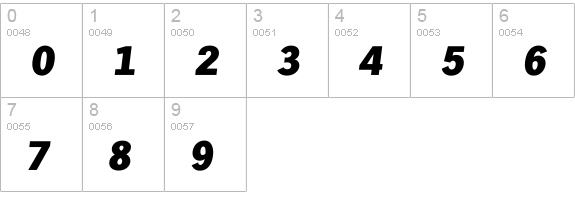
Ihamburg ExtraBold is an extra-heavy, attention-grabbing variant in the Ihamburg typeface family \xE2\x80\x94 well suited to high-impact headlines, posters, and bold branding.
Ihamburg ExtraBold is a striking and bold font that commands attention with its strong presence. This font exudes confidence and power, making it the perfect choice for headlines, logos, and any design that needs to make a bold statement. With its thick and solid letterforms, Ihamburg ExtraBold is both modern and timeless, making it versatile for a wide range of design projects. Whether you're designing a poster, a website, or a branding project, this font will add a touch of sophistication and elegance. What makes Ihamburg ExtraBold even more appealing is that it is freely available to download at FontsMarket.com. This means that you can enhance your designs with this exceptional font without having to worry about any additional costs. With its high-quality design and professional aesthetics, Ihamburg ExtraBold is a valuable asset for any designer or creative professional. The attention to detail in Ihamburg ExtraBold is remarkable, with perfectly balanced letterforms and a clean, crisp appearance. The bold strokes and sharp angles create a sense of energy and dynamism, giving your designs a sense of movement and excitement. Whether you're designing for print or digital media, Ihamburg ExtraBold will make your text stand out and grab the viewer's attention. Its bold weight and strong presence make it ideal for headlines, titles, and other prominent text elements. In conclusion, Ihamburg ExtraBold is a free font that combines boldness, elegance, and versatility. Its striking design and high-quality craftsmanship make it a must-have for any designer who wants to make a bold statement. Download Ihamburg ExtraBold today at FontsMarket.com and elevate your designs to new heights.